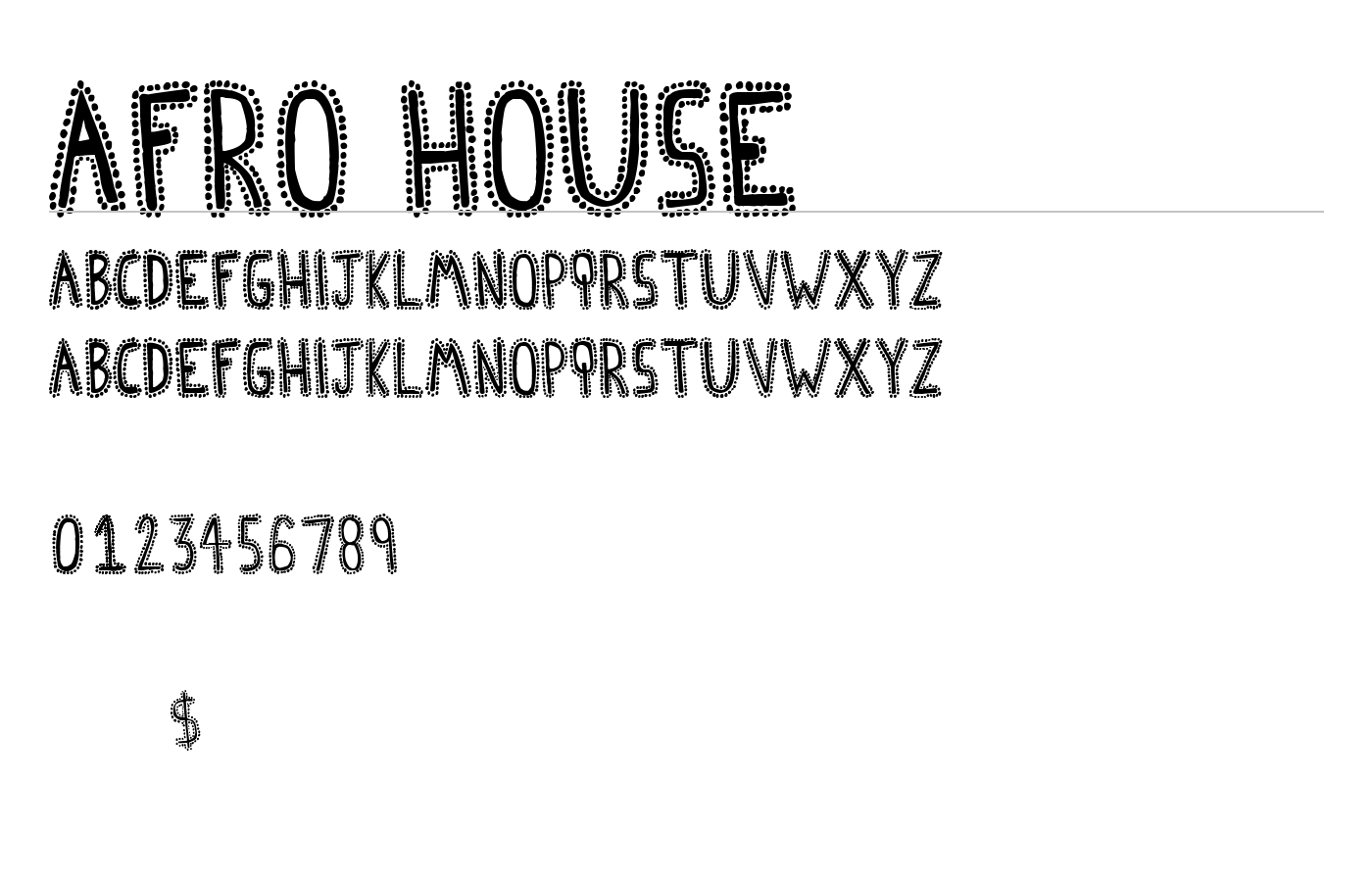
Afro House is a playful and decorative sans serif font with a hand-drawn feel, featuring tall, narrow letterforms outlined by dotted strokes that give it a lively texture. This font’s quirky style and unique dotted edges make it perfect for creative projects, posters, and branding that seek a fun, casual, and vibrant look. Its distinctive character brings personality and energy, ideal for designs that want to stand out with a joyful and artistic flair.
Afro House Font
About Afro House Font